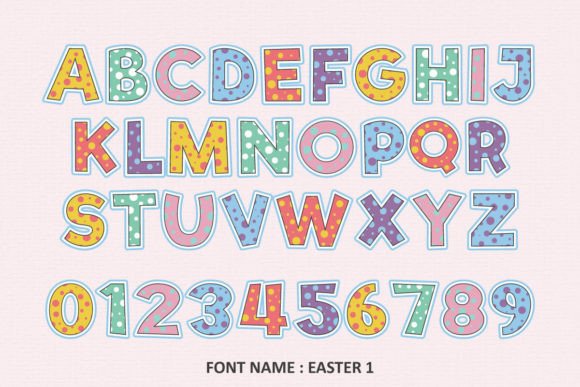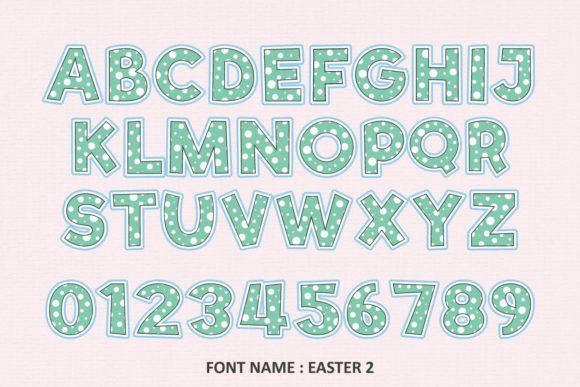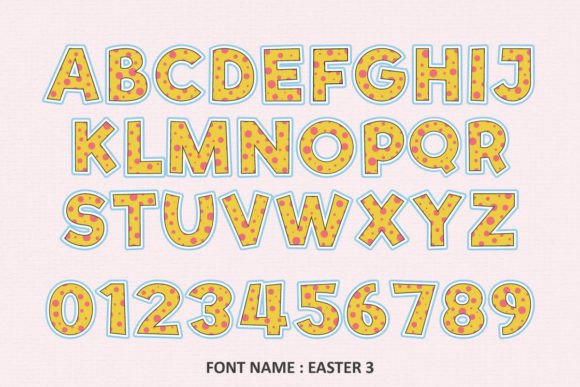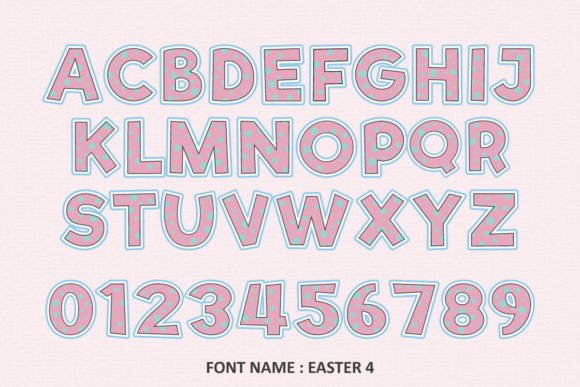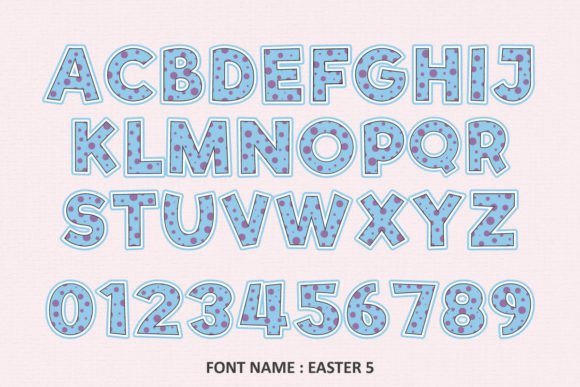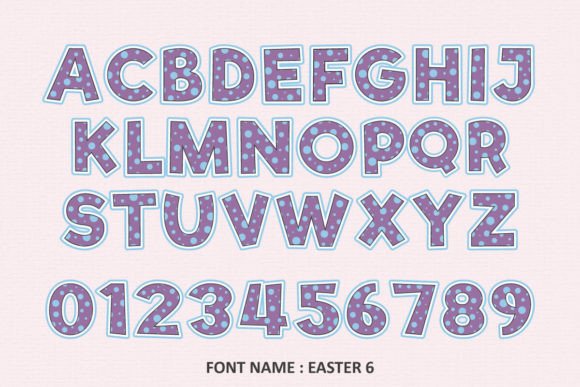
Introducing Easter Font: Add a Burst of Energy to Your Designs
Easter is just around the corner, and what better way to celebrate than with a fresh and vibrant font to elevate your designs? Look no further than the Easter Font, a sweet, chic, and bubbly color font that’s perfect for adding a fun touch to your projects. In this article, we’ll dive into the features and benefits of this exciting new font, and explore how you can make the most of it in your designs.
A Font that’s Full of Life
The Easter Font is a game-changer for designers and crafters looking to add a pop of color and energy to their work. With its range of bright, vibrant hues, this font is guaranteed to make your designs stand out from the crowd. Whether you’re creating headlines, logos, or social media graphics, the Easter Font is the perfect choice for anyone looking to make a bold statement.
Key Features of Easter Font
- Vibrant Colors: The Easter Font comes in a range of bright, fun colors that are sure to add a burst of energy to your designs.
- Playful Style: This font has a playful, bubbly style that’s perfect for Easter-themed designs, but can also be used for a wide range of other projects.
Using Easter Font in Your Designs
So, how can you use the Easter Font in your designs? Here are a few ideas to get you started:
- Easter-themed Projects: Use the Easter Font to create fun and festive Easter-themed designs, such as Easter egg graphics, bunny-themed posters, or spring-themed social media graphics.
- Headlines and Logos: The Easter Font is perfect for creating eye-catching headlines and logos that will make your designs stand out.
- Social Media Graphics: Use the Easter Font to create fun and engaging social media graphics that will help you connect with your audience.
Tips for Using Easter Font
Here are a few tips for getting the most out of the Easter Font:
- Experiment with Colors: Don’t be afraid to try out different color combinations to find the one that works best for your design.
- Mix and Match: Use the Easter Font in combination with other fonts and design elements to create a unique and eye-catching design.
Color Version Compatibility: What You Need to Know
The Easter Font is a fun and vibrant color font that’s perfect for adding a burst of energy to your designs. With its range of bright colors and playful style, this font is guaranteed to make your designs stand out from the crowd. Whether you’re a designer or crafter, the Easter Font is a great choice for anyone looking to create eye-catching and engaging designs. So why wait? Download the Easter Font today and start creating!